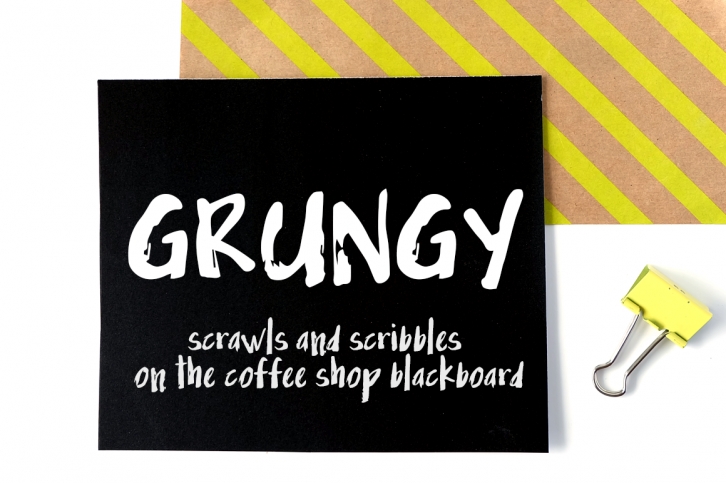
Grungy is a trendy and unique font with an authentic style. It was designed by Mikko Sumulong and it's a great choice for creative people who need such a font. It was released on December 12, 2017 and the file size is 9.47 MB. Grungy will add an organic vibe to any design idea!